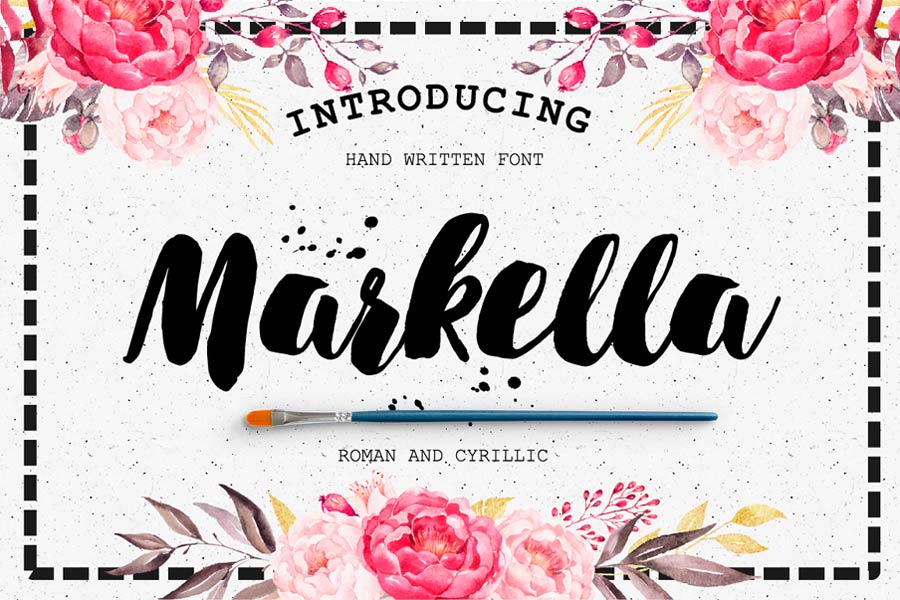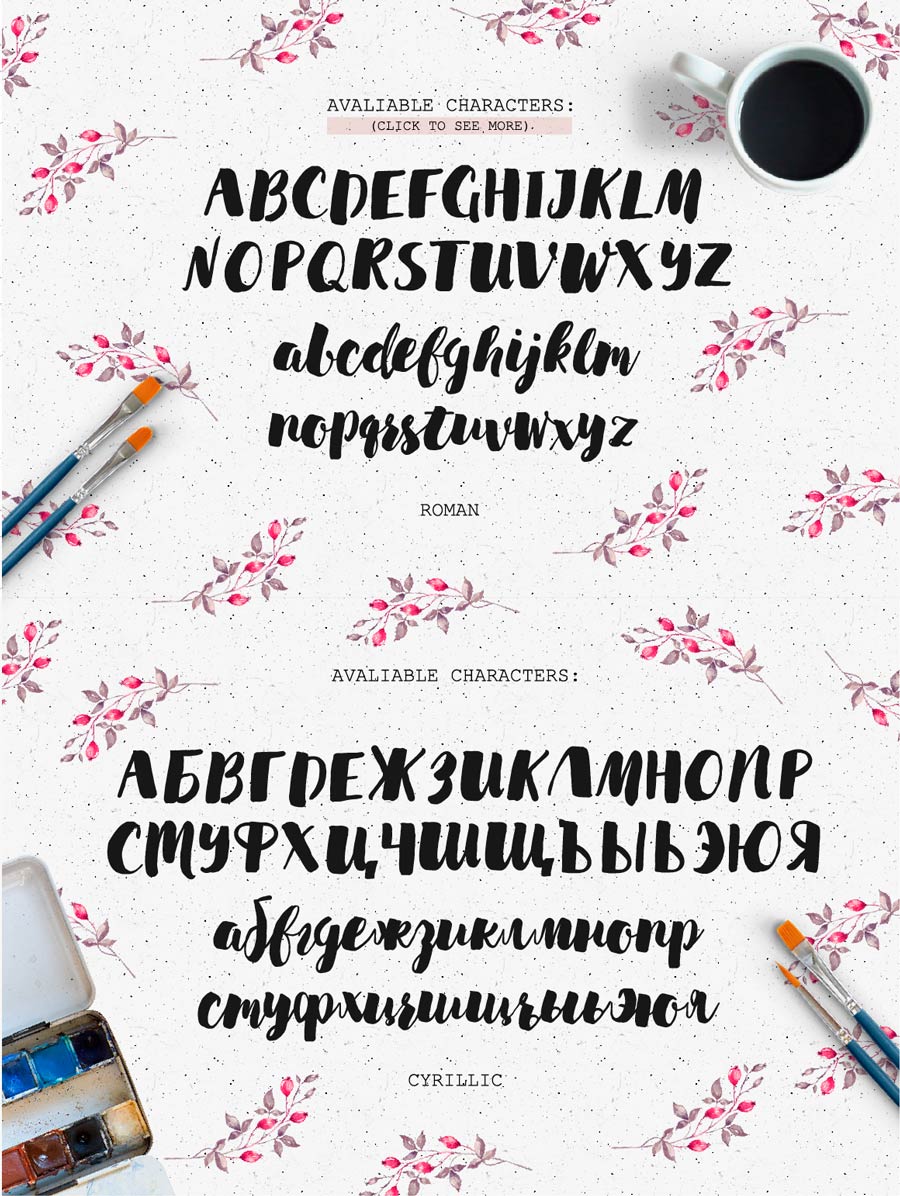
This week’s free font from Creative Market featuring the beautiful handwritten brush font Markella. The letters feature a harmonic combination of extremely thick and thin stems, also the slight slant on the character designs give the sense of human touch to it. This font is perfect for creating design that conveys feminism, creativity and positivity.
- Designer: Katsia Jazwinska